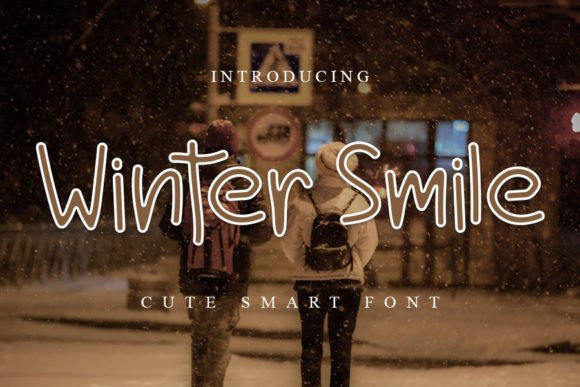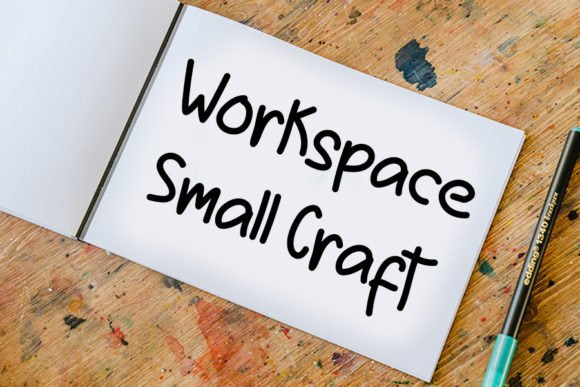
Winter Smile Font
Winter Smile is a simple, cute and trendy handwritten font. Whether you’re using it for crafting, digital designing, presentations or greeting cards making, it’s the ideal choice of font.